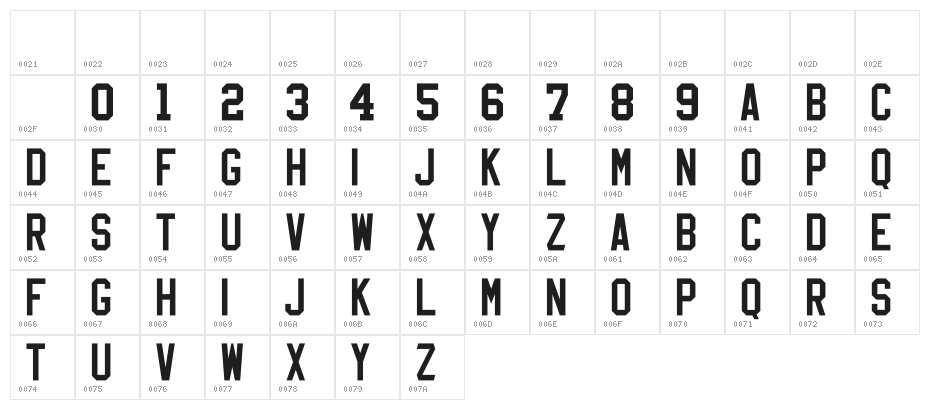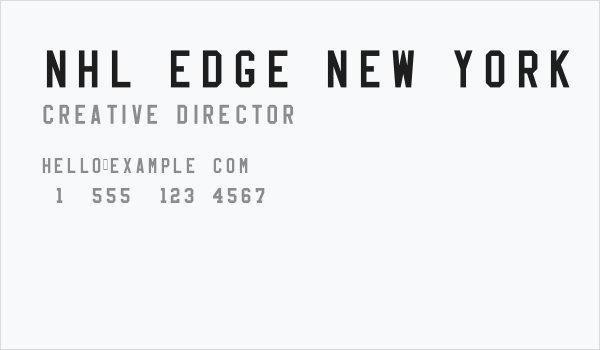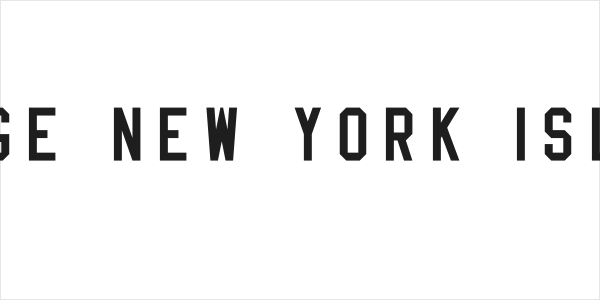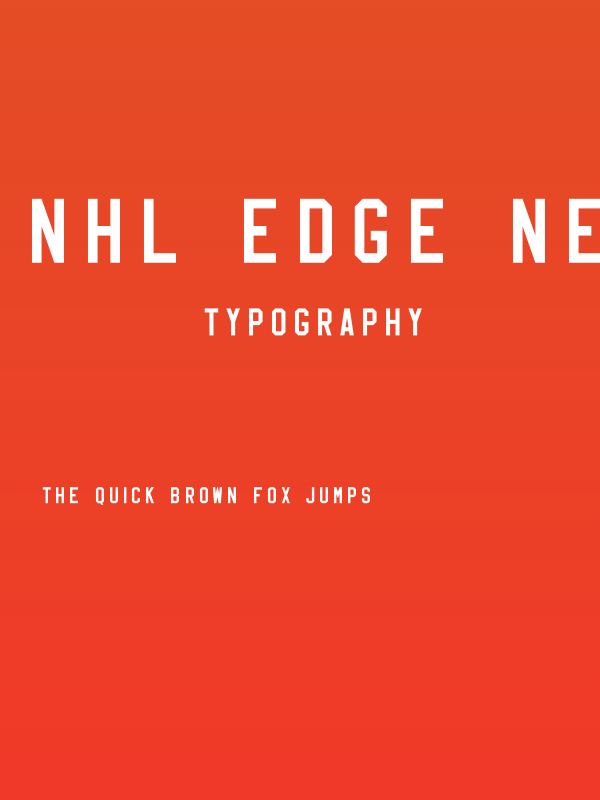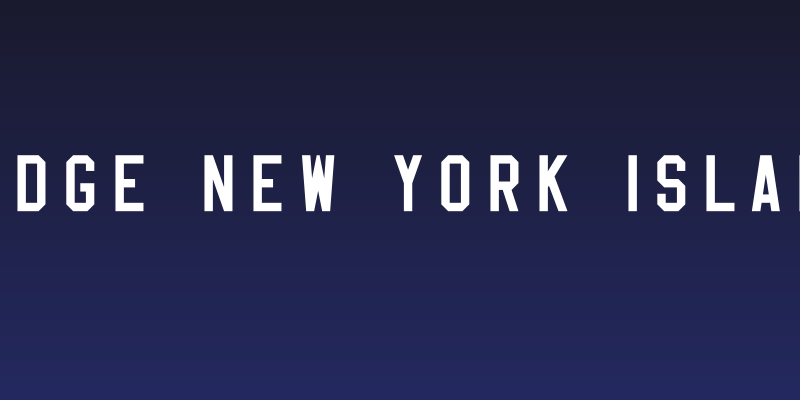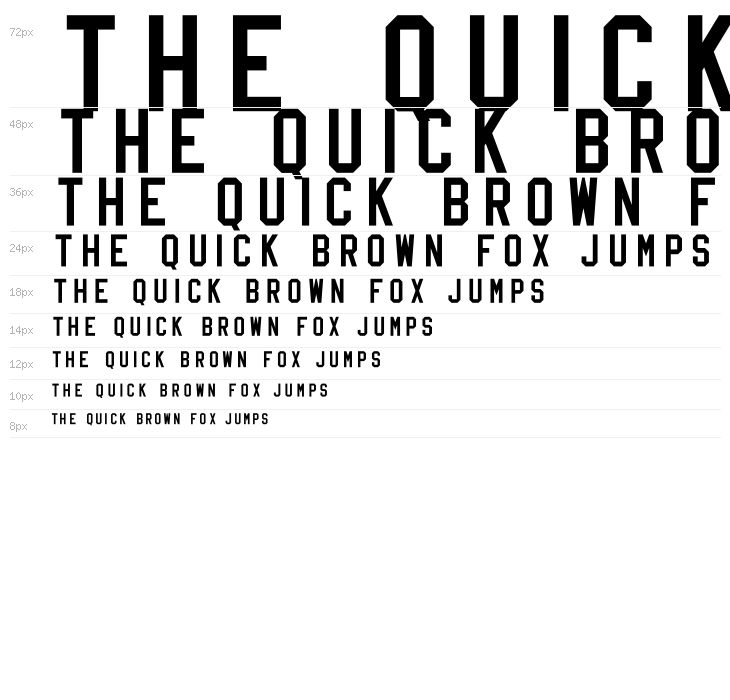
NHL Edge New York Islanders Font
NHL Edge New York Islanders Description
This font features a bold, geometric design with a strong, athletic feel. The characters are blocky and angular, with a uniform stroke width that gives it a sturdy and robust appearance. The uppercase letters are particularly striking, with sharp edges and a slightly condensed form that enhances its boldness. The numbers follow the same style, making them highly legible and impactful. This font is reminiscent of sports jerseys and team branding, conveying a sense of strength and determination. Its clean lines and lack of serifs contribute to a modern and professional look, suitable for conveying authority and confidence.
| Use Case | Logos, Headlines |
| Proposed Projects | Perfect for sports team branding, athletic apparel, event posters, and merchandise design. |